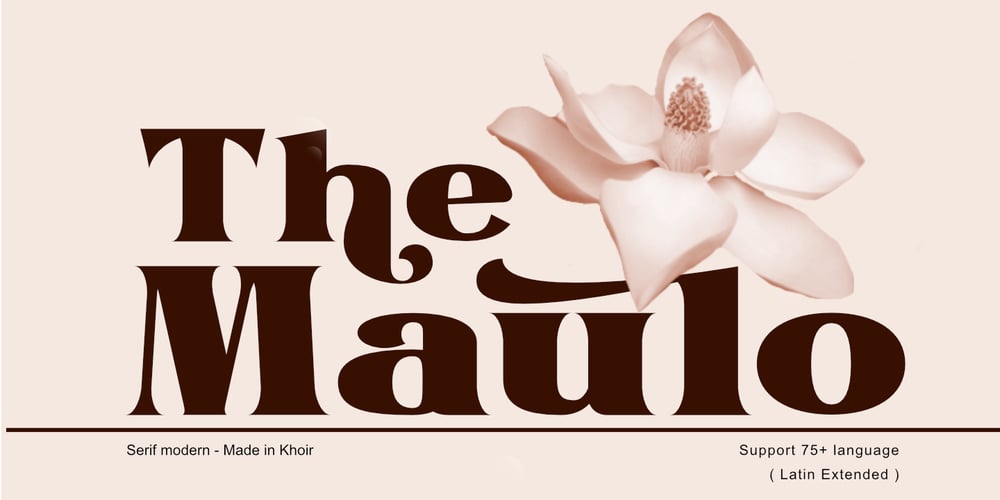
The Maulo Font Family was designed by Muhammad Romzul Khoir and published by Khoir. The Maulo contains 1 styles and family package options. Maulo is a modern serif font that’s vintage in the 60s style, has a bold shape, with a pretty alternative and is multilingual, making it incredibly versatile. This font has a unique shape, especially if the alternative has a thick, threaded shape that makes this font unique. This font is suitable for branding needs, posters, wedding cards, logo identification cards, novels, books, labels, texts, magazines. so what are you waiting for!What’s included? Uppercase Characters Lowercase Characters Support 75+ Language FEATURESMaulo (OTF)So what are you waiting for? immediately purchase this font, feel free to comment, or send me my PM or email at khoirtypework@gmail.com Thank you for seein.